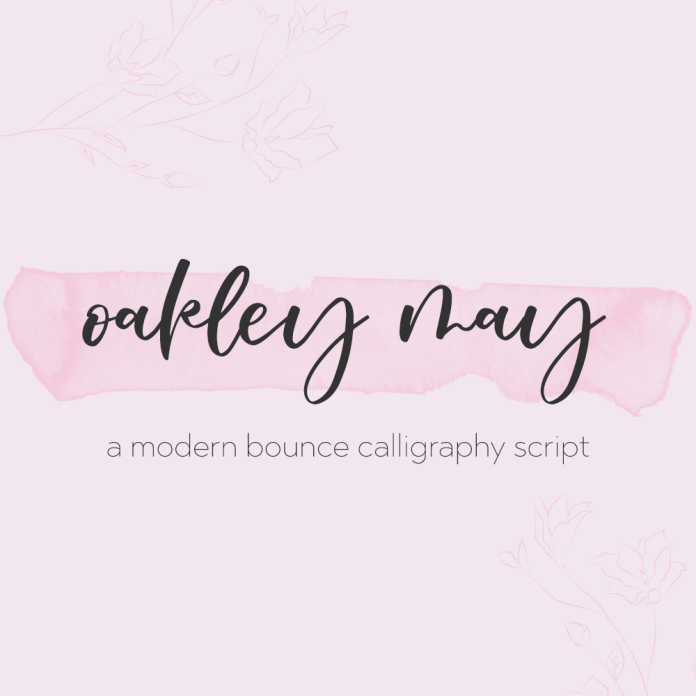
Oakley May Script Font
Introducing Oakley May, a flowing calligraphy font with beautiful feminine, elegant qualities. Oakley May is best for: – logos + branding
– 7 alternate characters – l, o, r, s, t, u, u
– 2 ligatures – ct, th